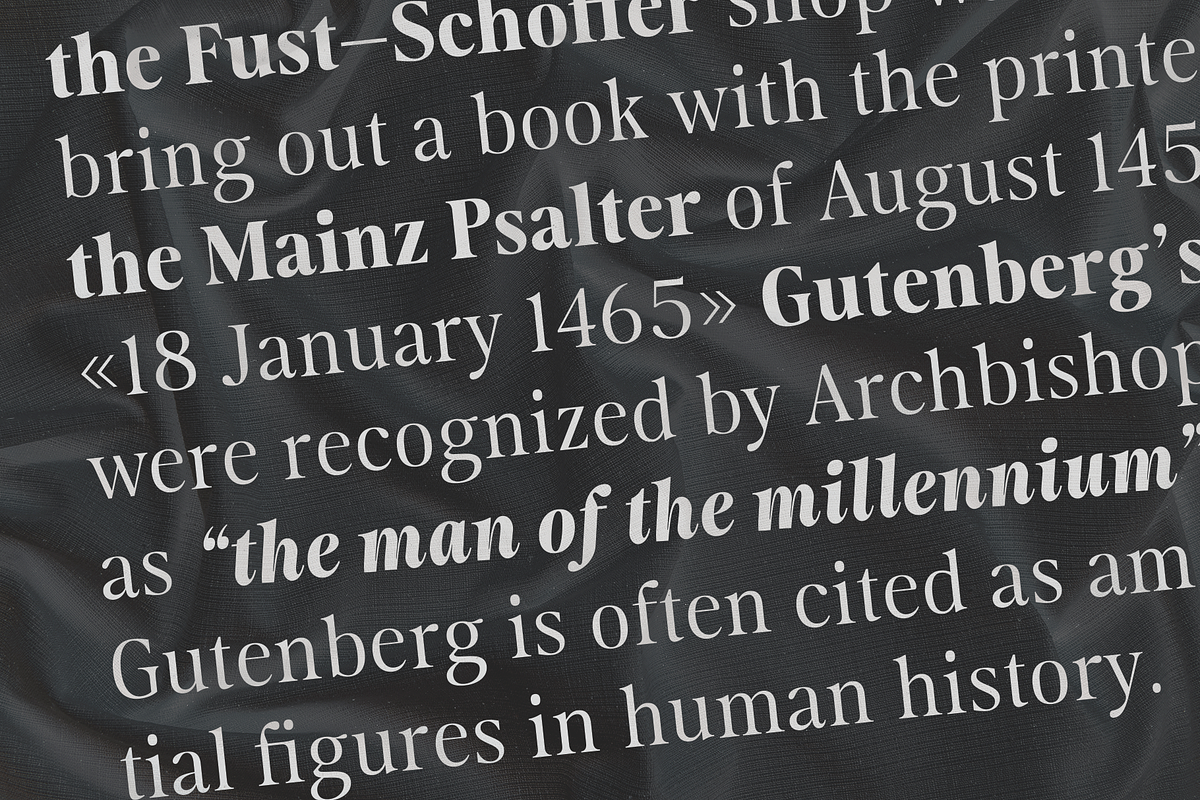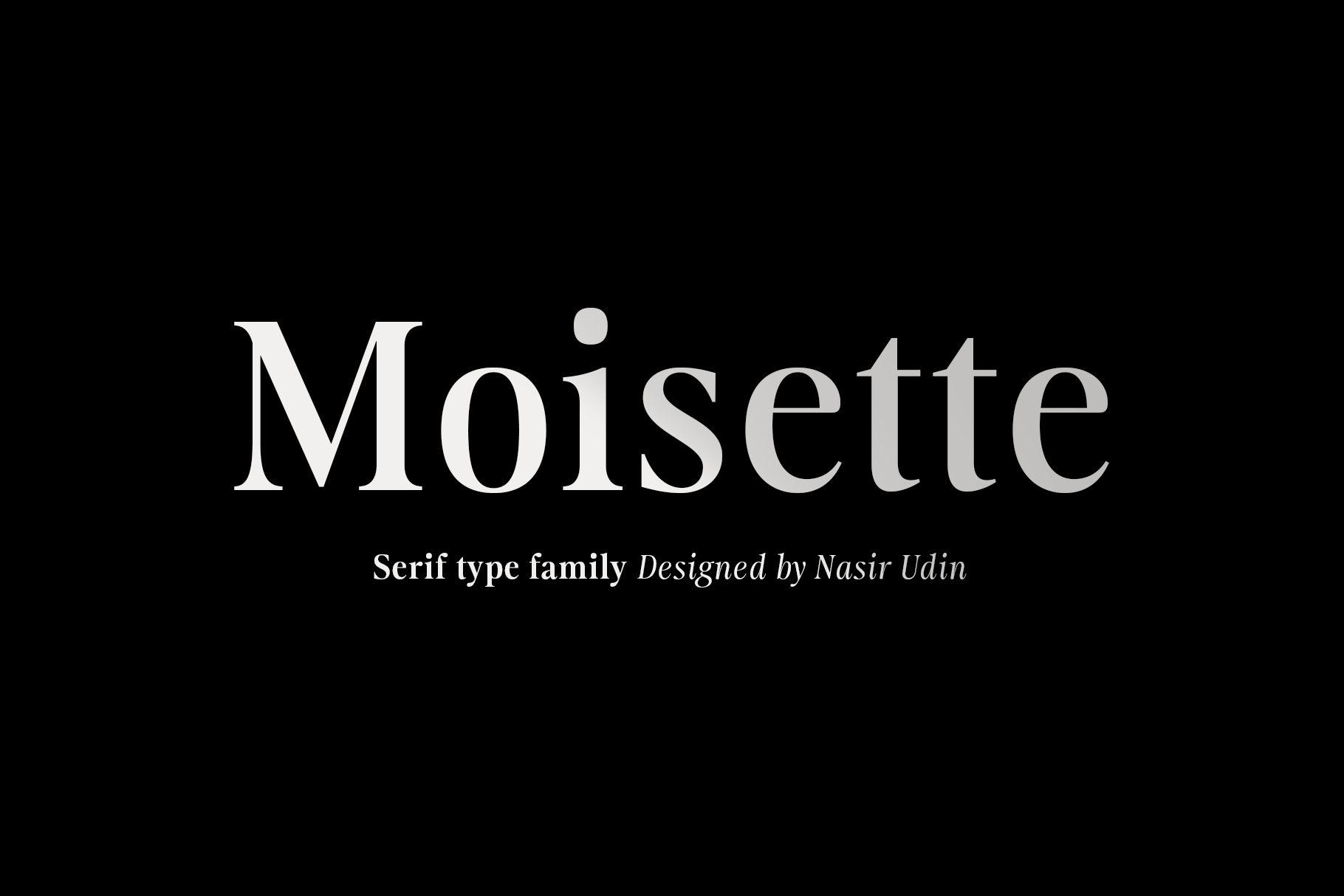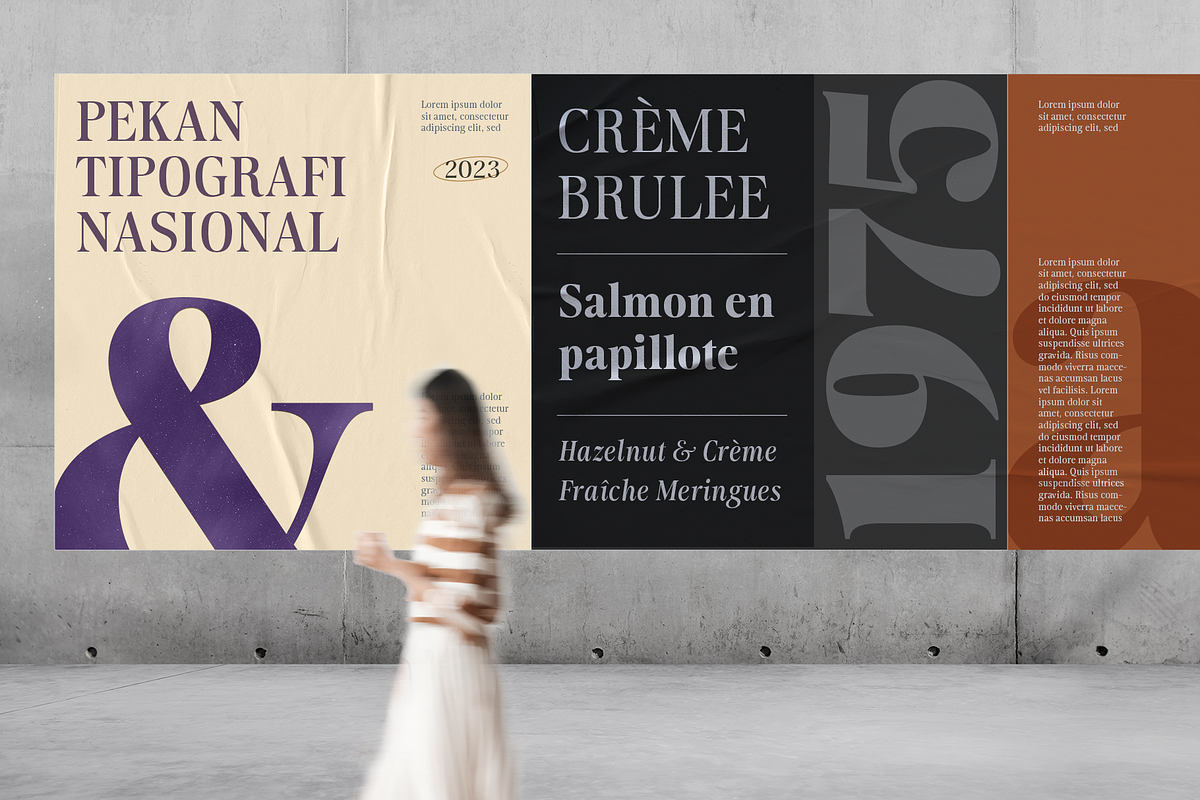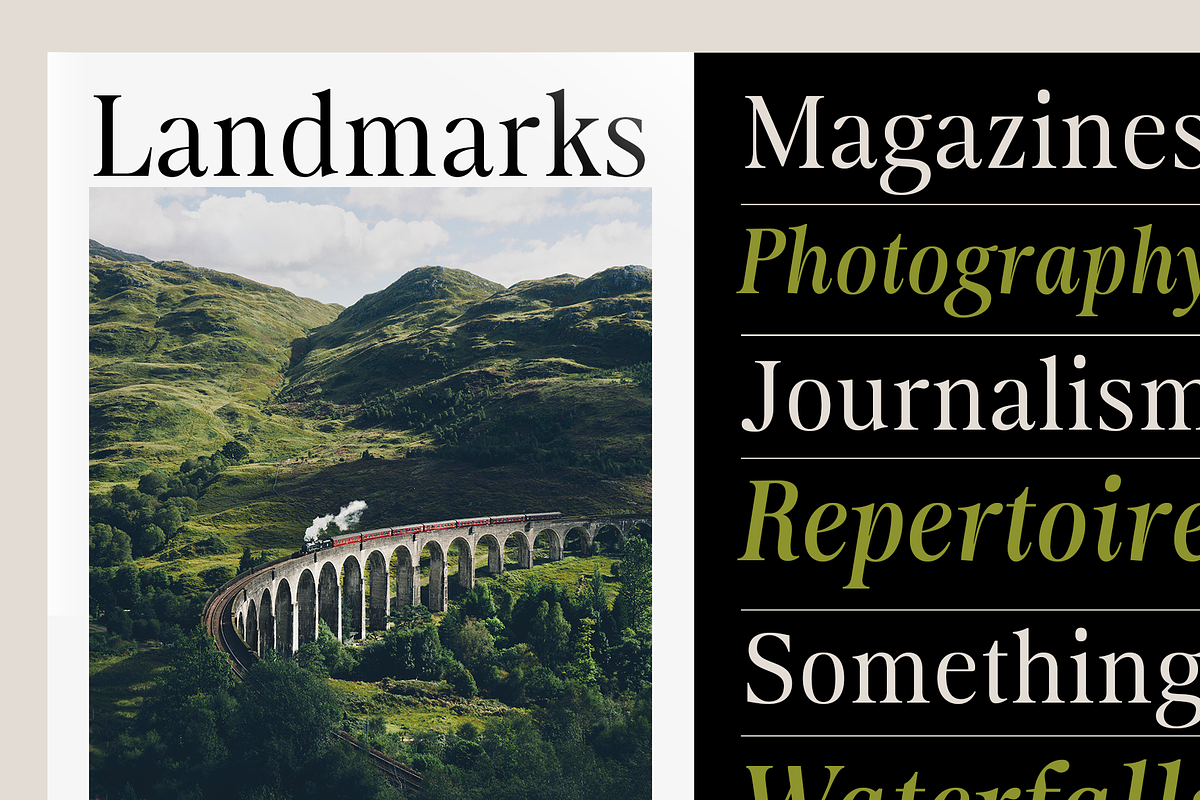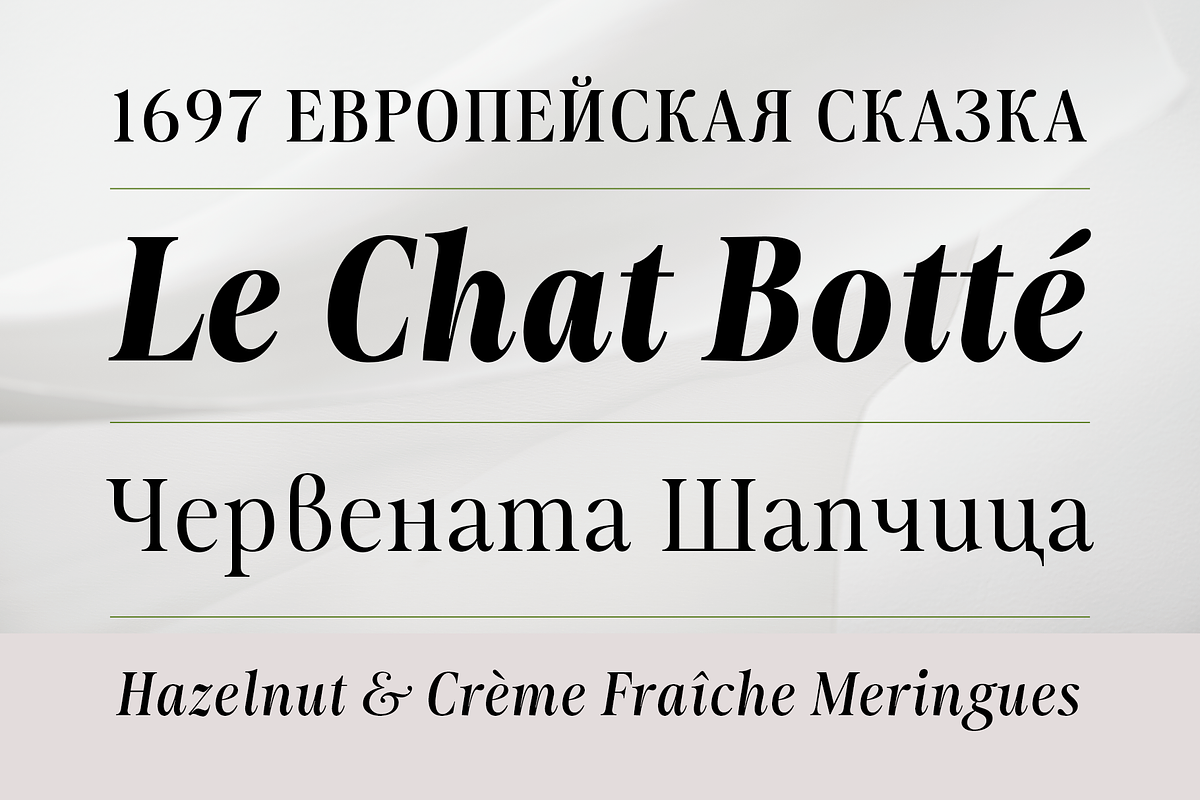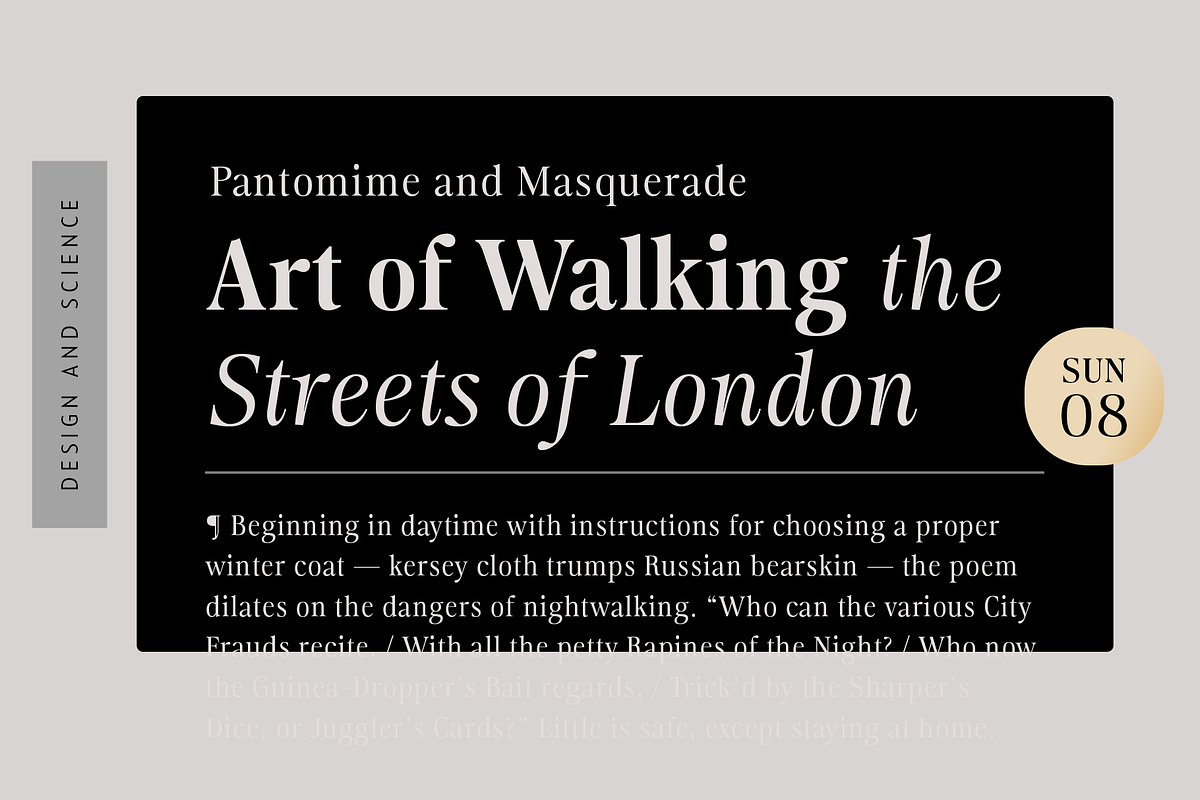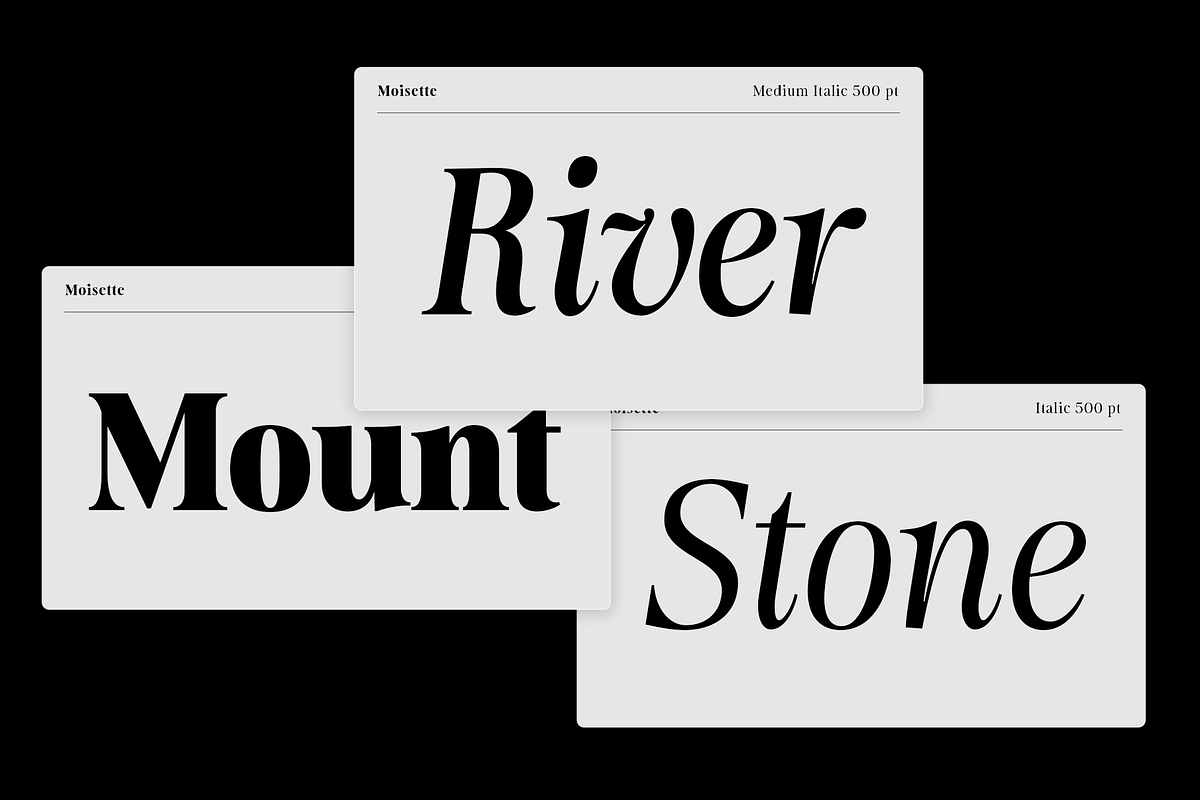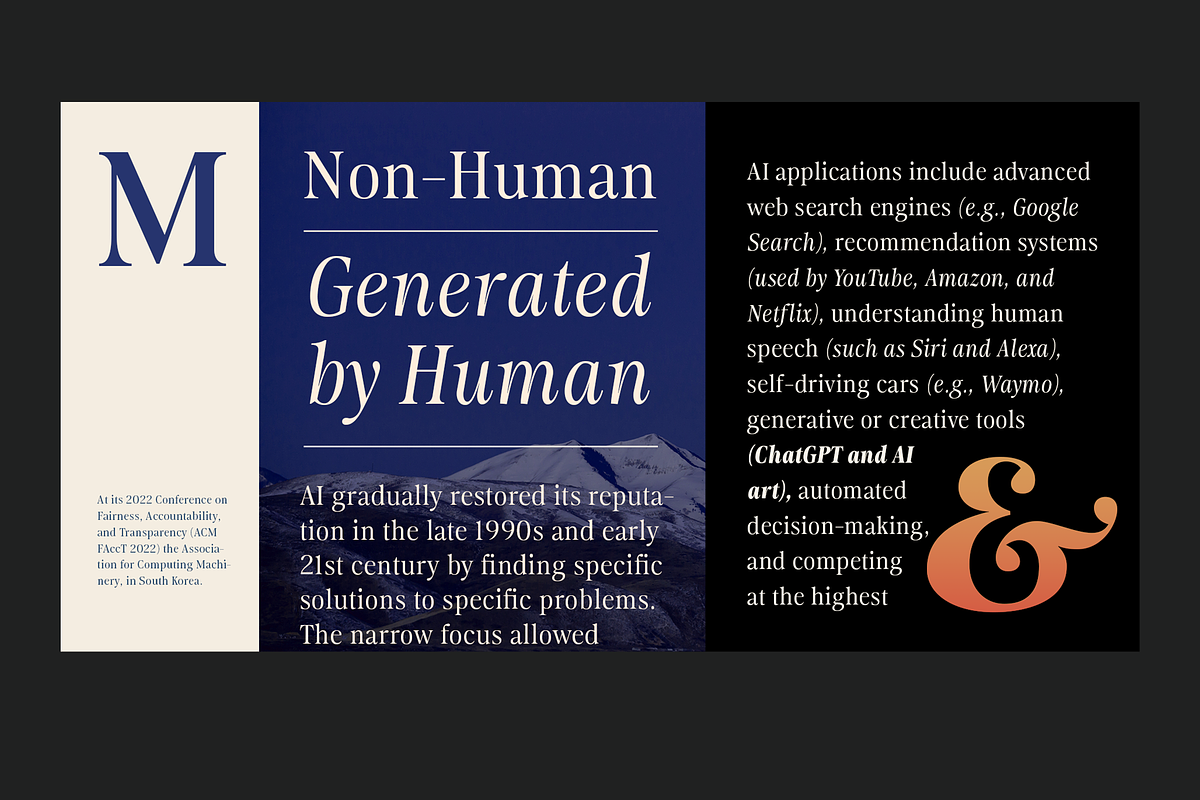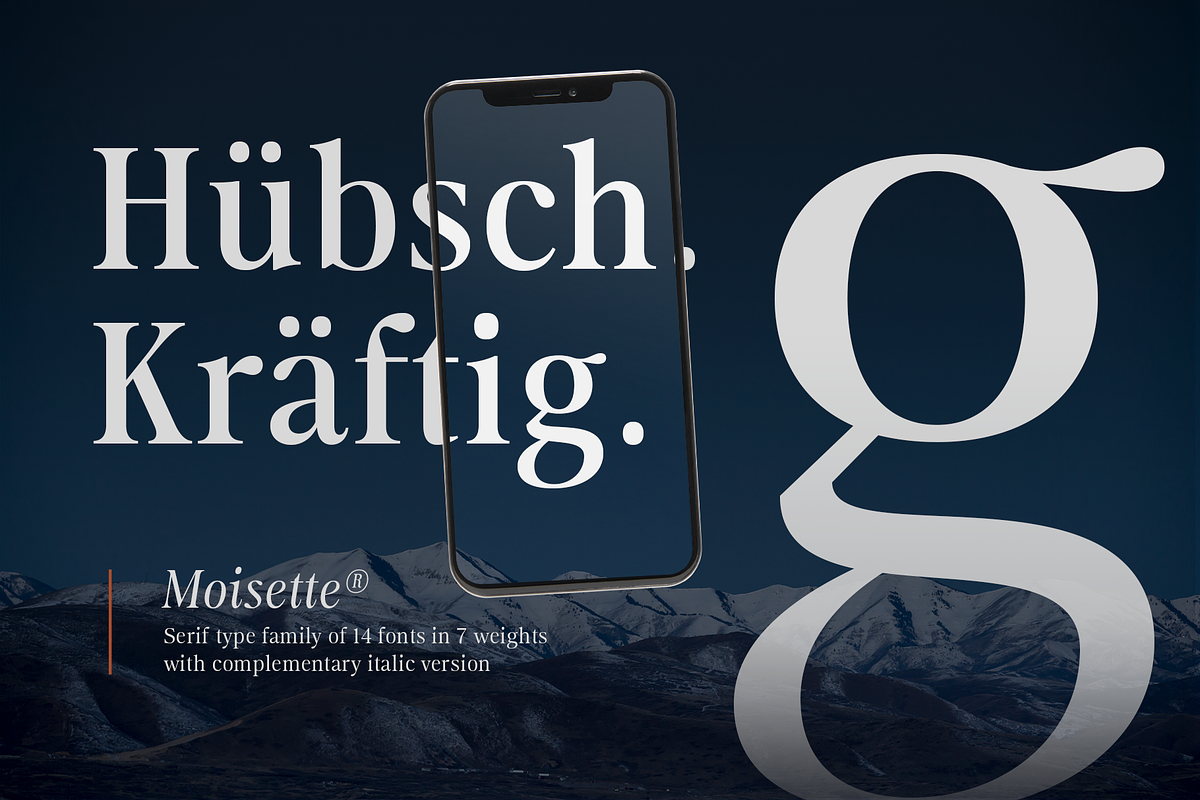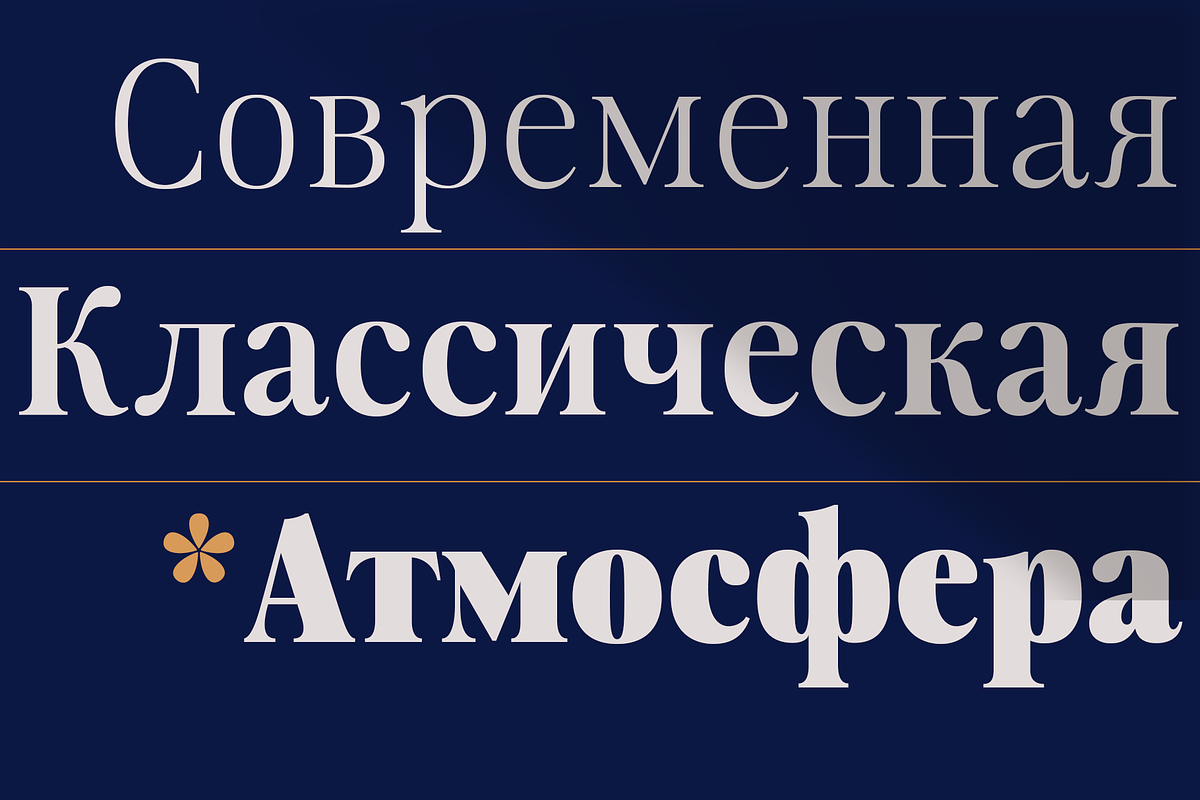
Moisette - 14 Fonts
Moisette is a serif typeface inspired by the classic and the modern.
Developed in 7 weights, from light to black with its complementary italics, Moisette offers many possibilities to be applied in many graphic or editorial projects, for short paragraph or display purpose such as branding, newspaper headlines, book covers, web heading, packaging, etc.
Moisette has been designed with high-contrast stem ratio to give an elegant touch and luxurious appeal, and its high x-height makes sentences more legibility. Also thanks to the extended Latin and Cyrillic character set (incld. Bulgarian & Serbian Cyrillic) that supports 200+ languages.
Key features:
- 14 styles in 7 weights with matching italics
- Stylistic alternates for "v" & "w" italic
- Extended Latin & Cyrillic charset that supports 200+ languages
- Glyph count: 728 glyphs (Roman), 738 glyphs (Italics)